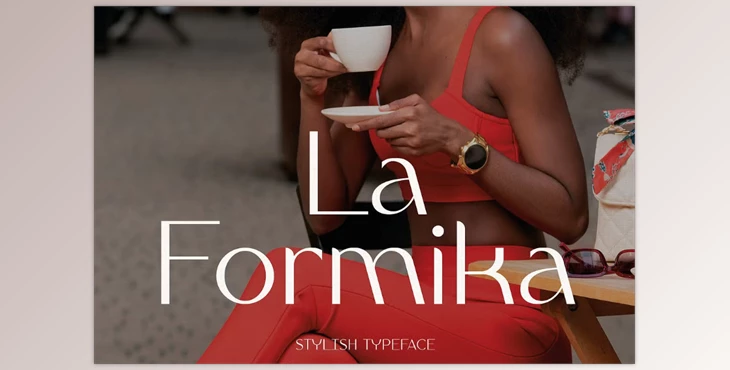
La Formika Typeface: A luxurious and sophisticated typeface tailored for high-end brands in fashion, beauty, cosmetics, and premium projects.
Featuring refined lines and graceful curves, it enhances designs with timeless elegance and exclusivity. Ideal for magazine covers, product packaging, editorial spreads, and upscale branding, La Formika creates visually stunning logos, impactful headlines, and captivating layouts, blending elegance with modernity to elevate luxury design standards.